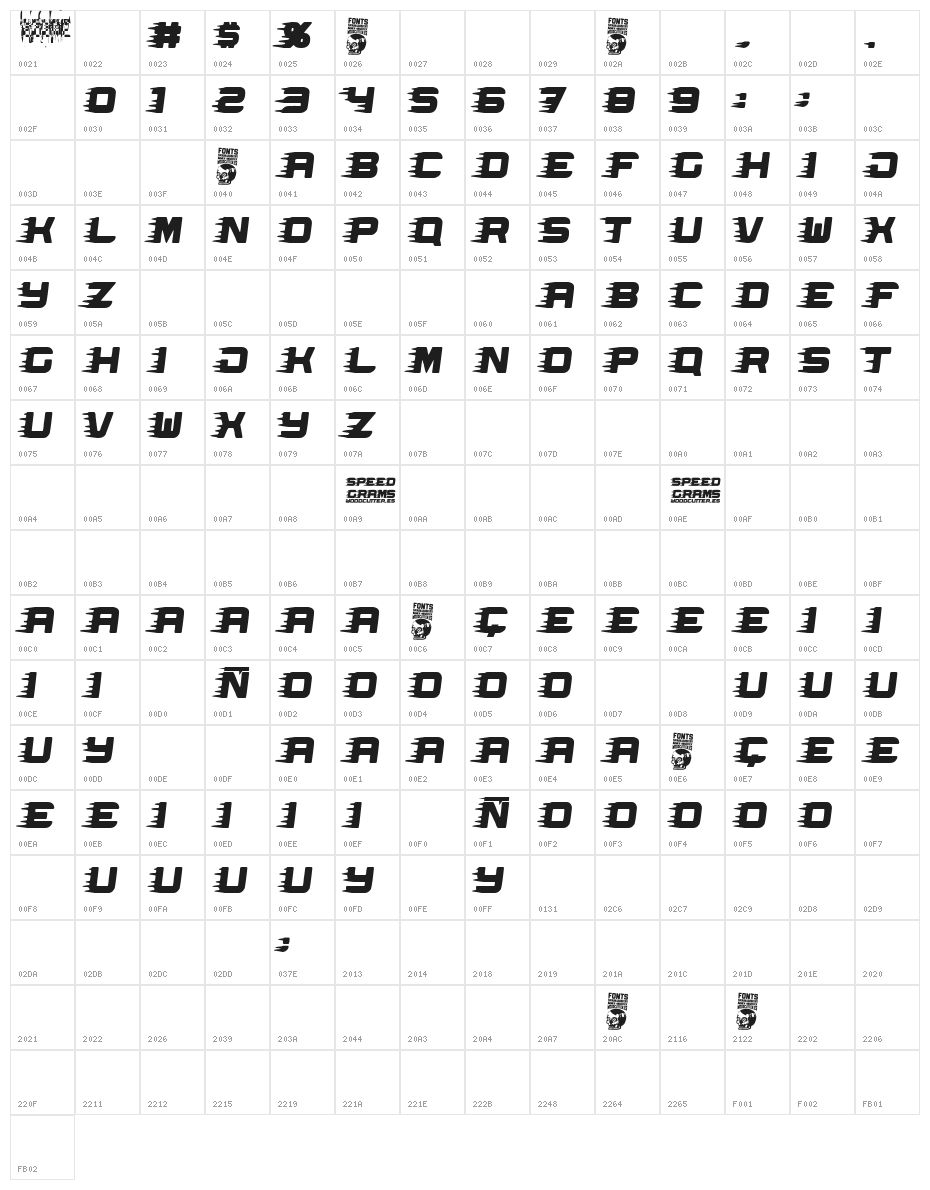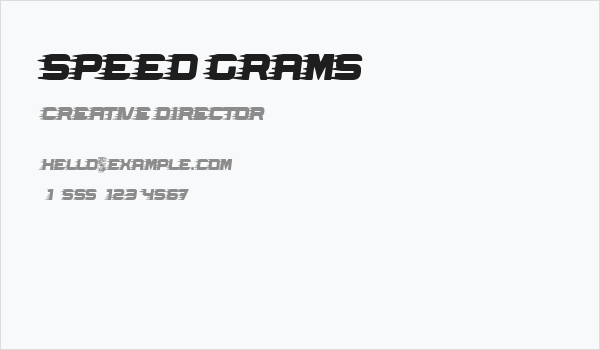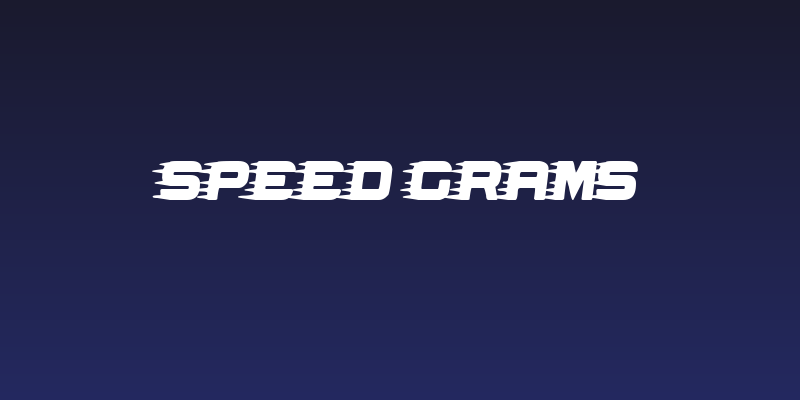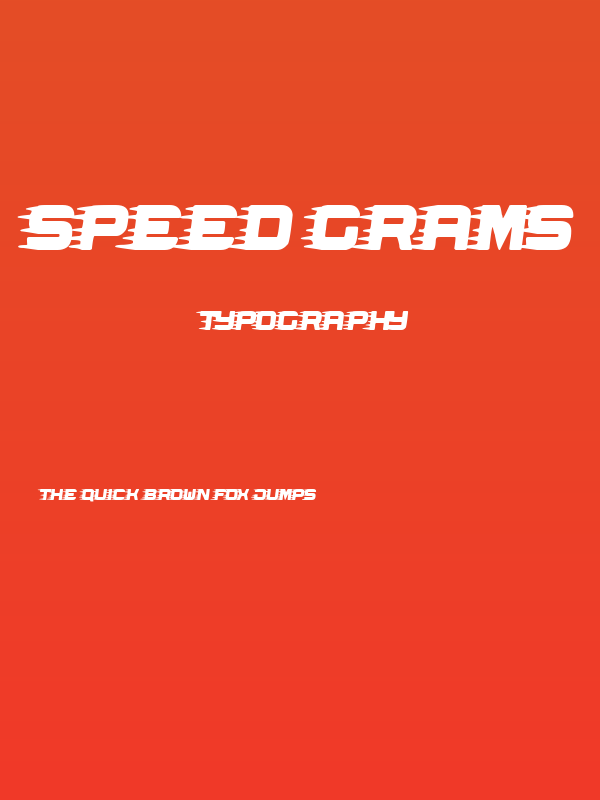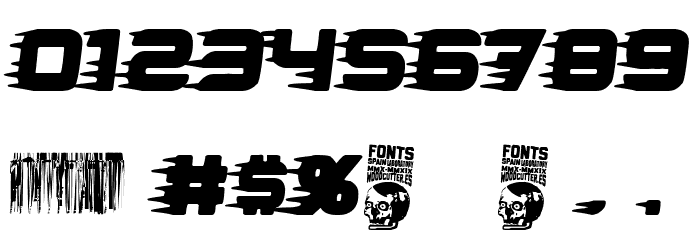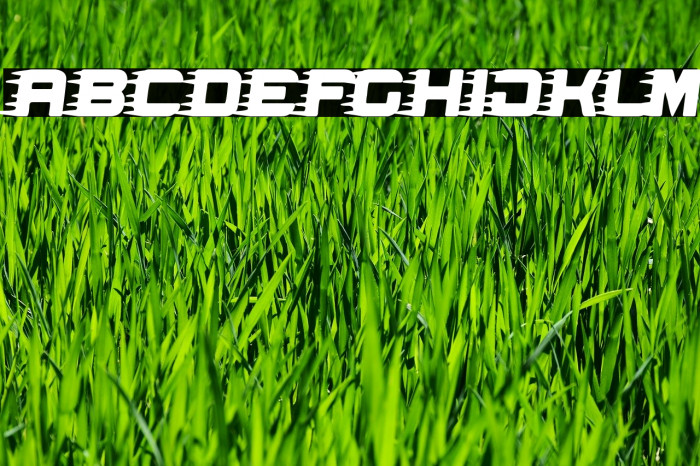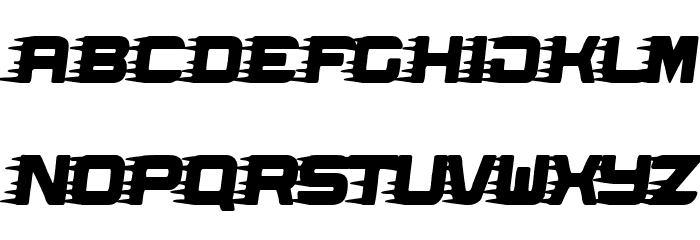
Speed Grams Font
Speed Grams Description
This dynamic and edgy font features a bold, italicized style with a unique speed-inspired design. The characters are sharply angled with a sense of motion, as if they are being pulled forward. The strokes are thick, providing a strong visual impact, while the edges are jagged, enhancing the sense of speed and movement. This font is perfect for projects that require a sense of urgency or energy, such as racing events, sports branding, or action-themed designs. The character spacing is tight, contributing to the compact and intense appearance of the text.
| Proposed Projects | Ideal for racing events, sports branding, action-themed designs, and dynamic advertisements. |